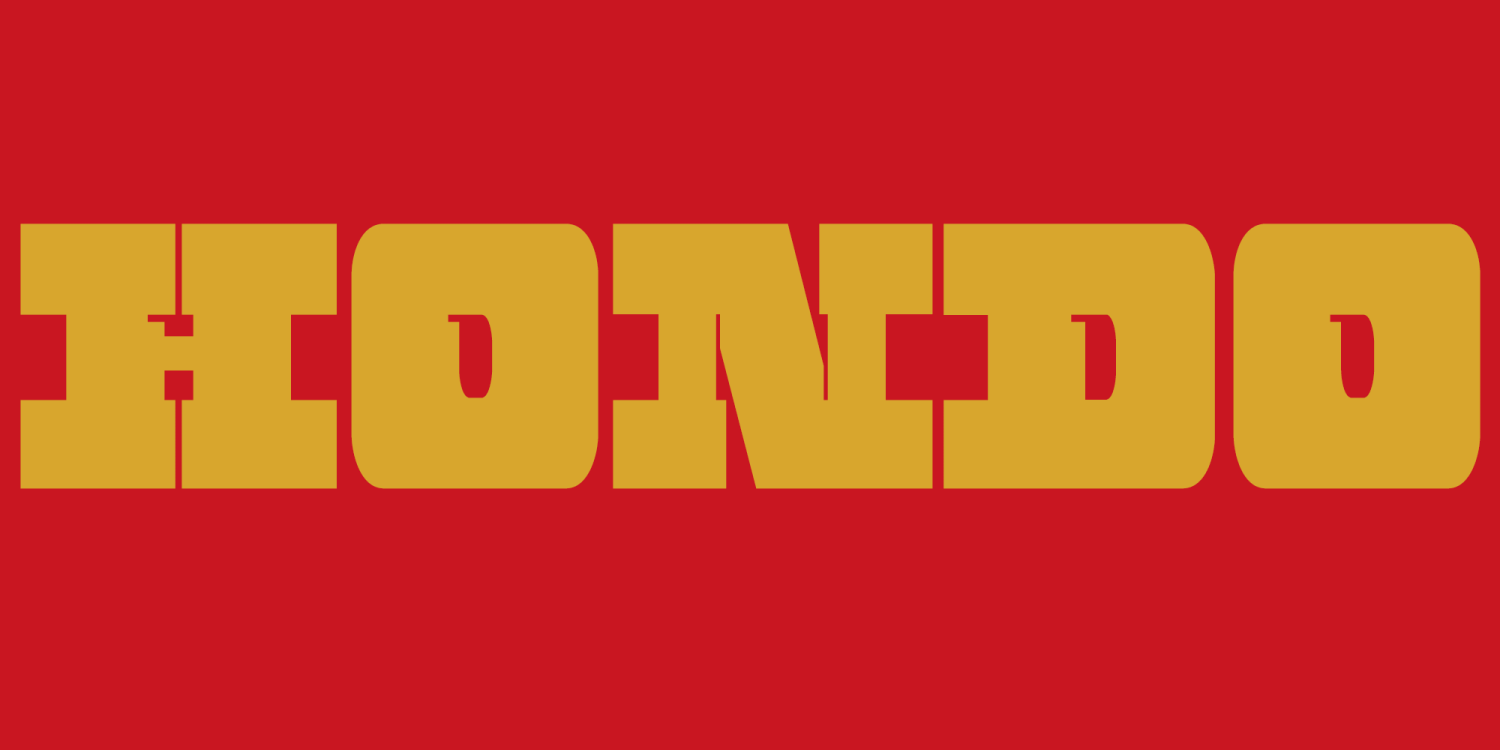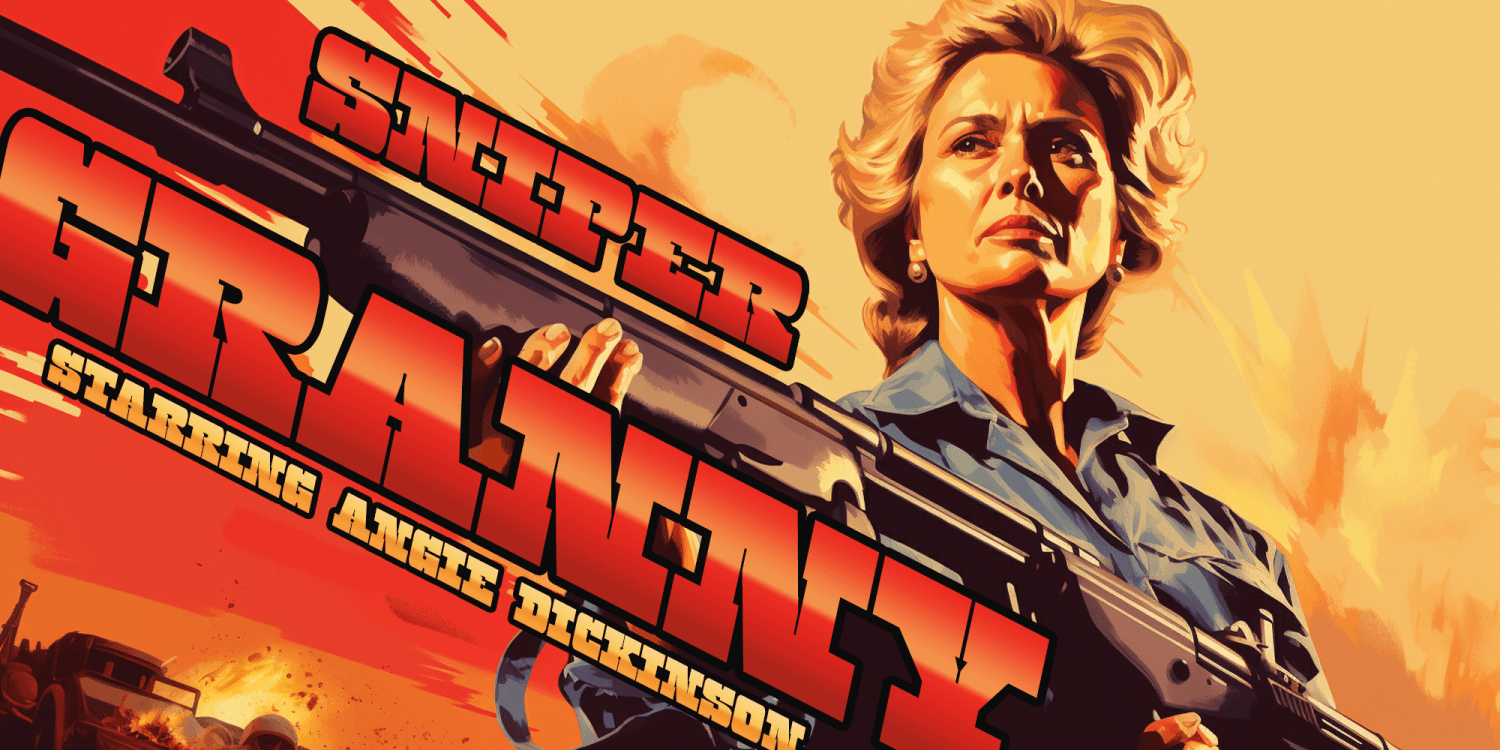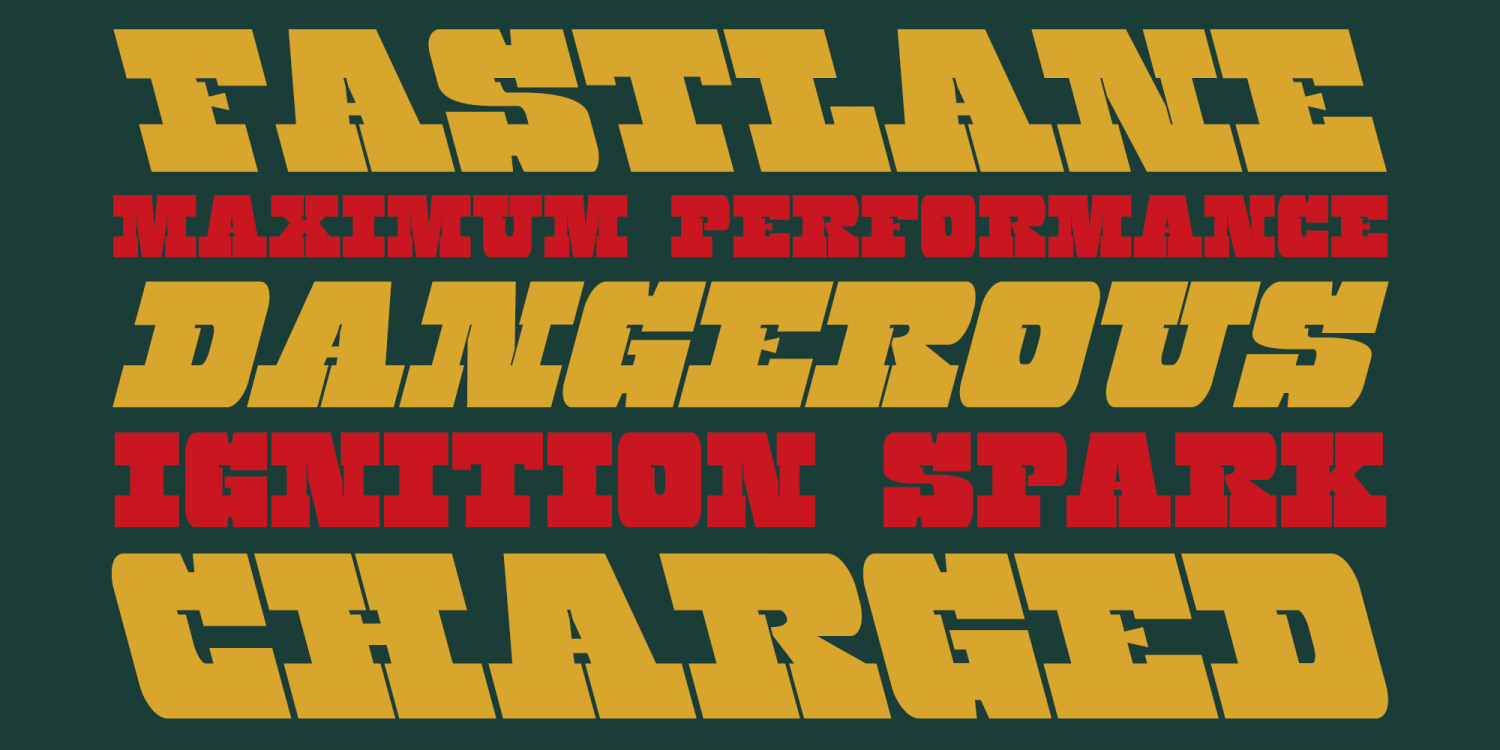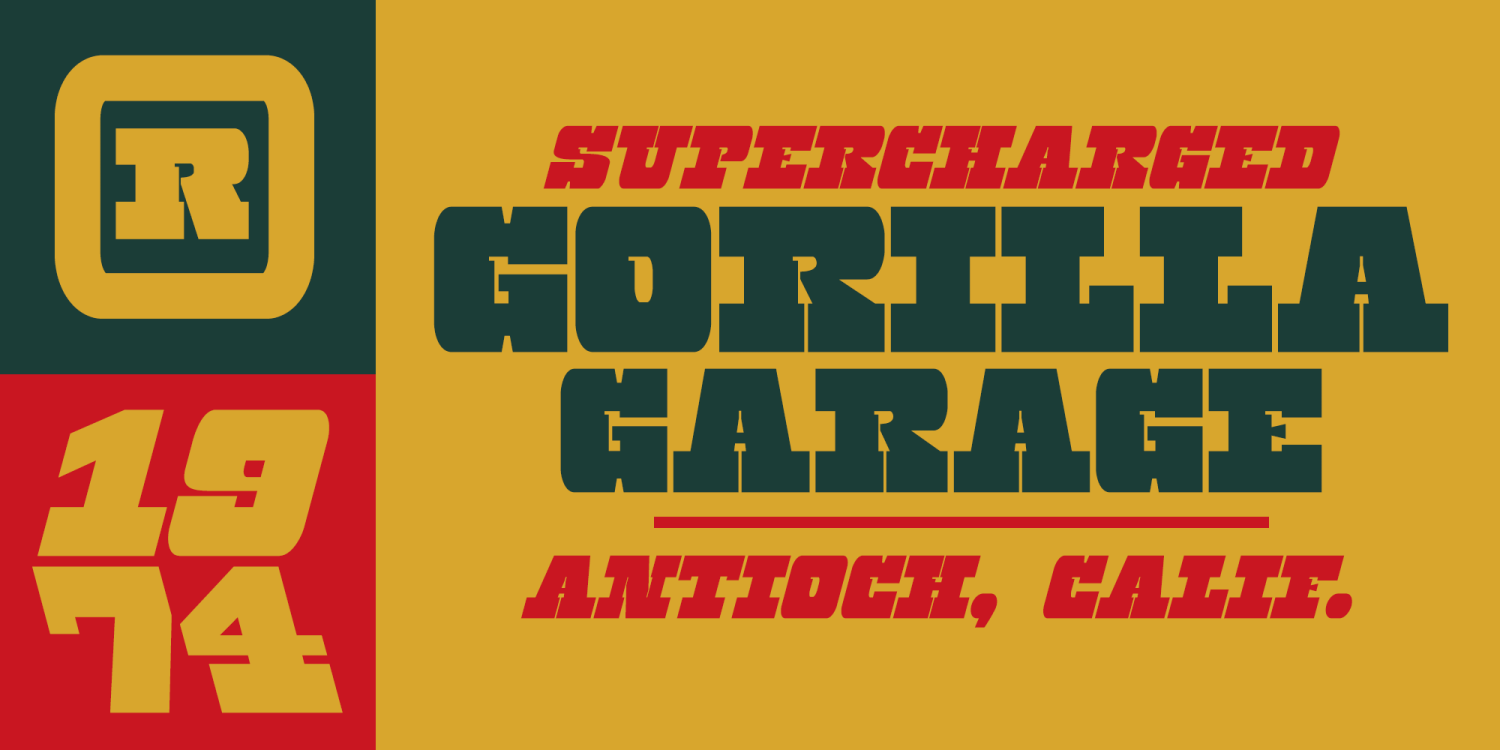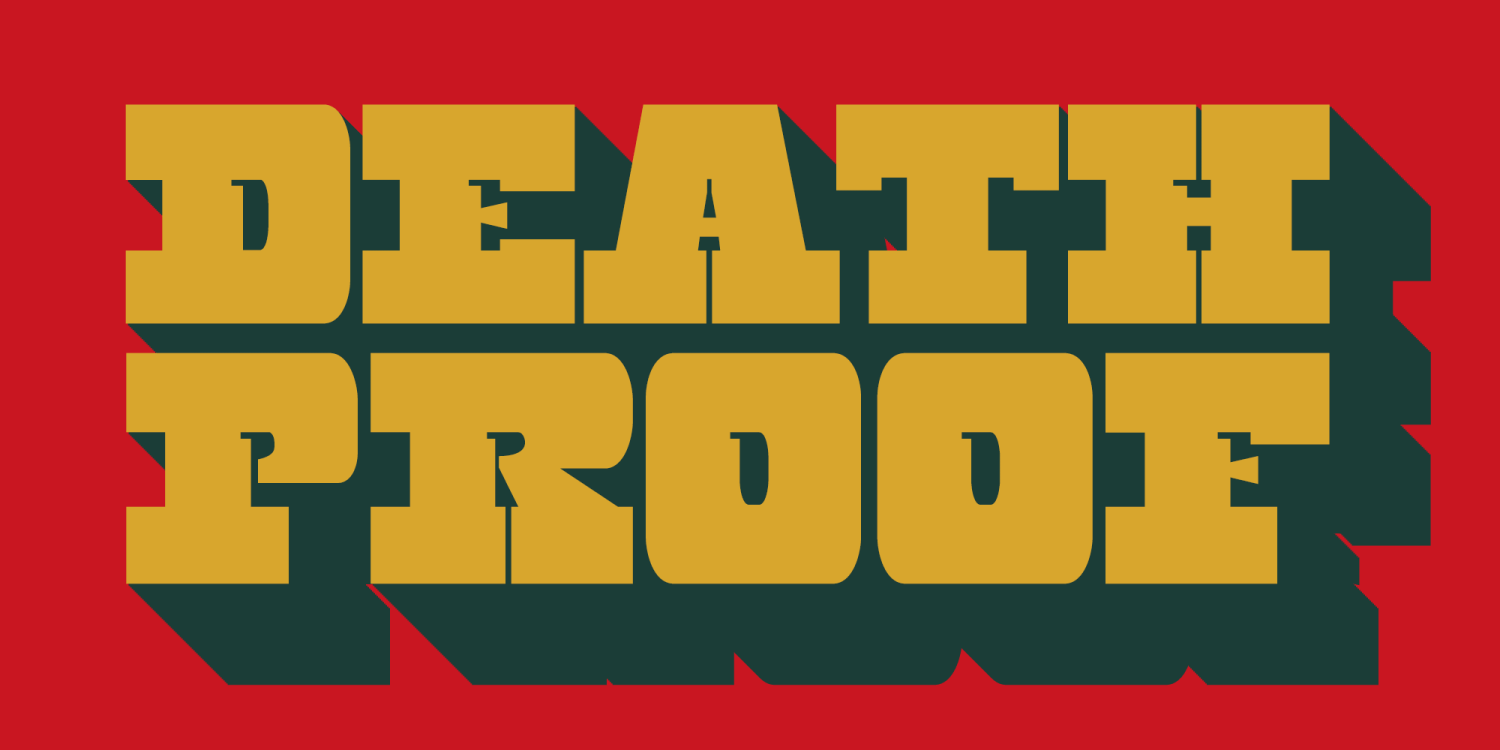
Hondo
Hondo is a collection of ultra-bold slab serif display faces where old-west swagger and outrageous wood type energy collide with a fast, high-performance edge. Heavyweight and unapologetic, Hondo’s blocky forms are sharpened with decorative yet functional inktraps that add bite, texture, and a dynamic rhythm across words. The result feels both vintage and racey—like classic western poster type rebuilt with modern attitude.
The family includes multiple styles, plus Slant and Backslant variants to push motion and impact even further. Use the upright cuts for rugged authority, or switch to the angled styles when you want speed, aggression, and extra headline drama. Hondo is built for titling, posters, logos, branding, signage, packaging, apparel, and short bursts of copy where bold slab personality and strong presence matter most.